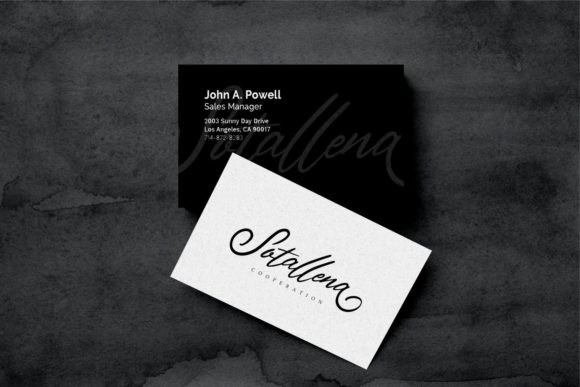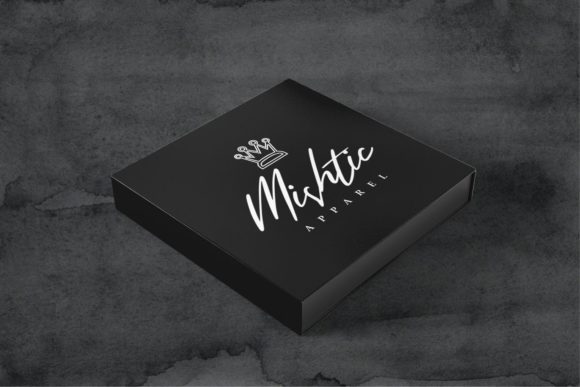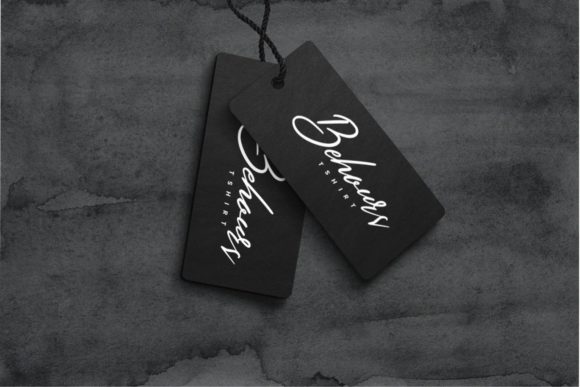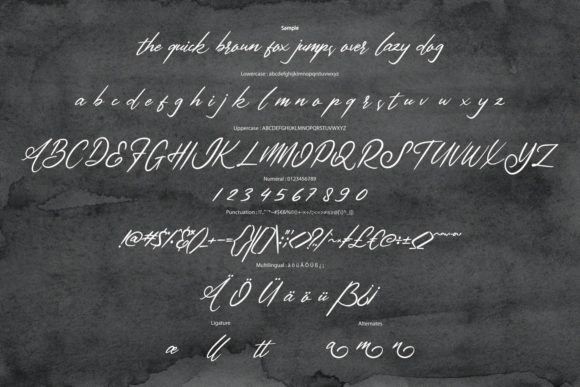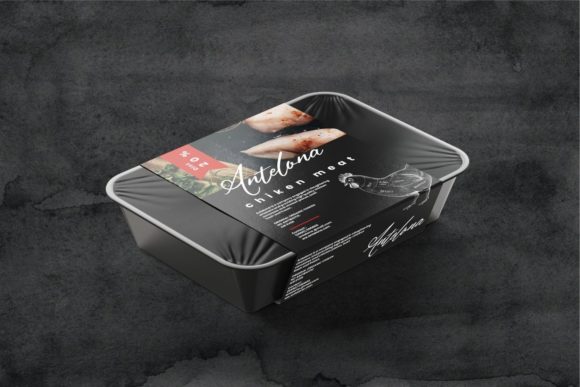
Antelona Script Font
About Antelona Script Font
**Antelona | Modern Script Font** with a calligraphy style. It looks beautiful on invitations, greeting cards, branding materials, business cards, quotes, posters, and more!